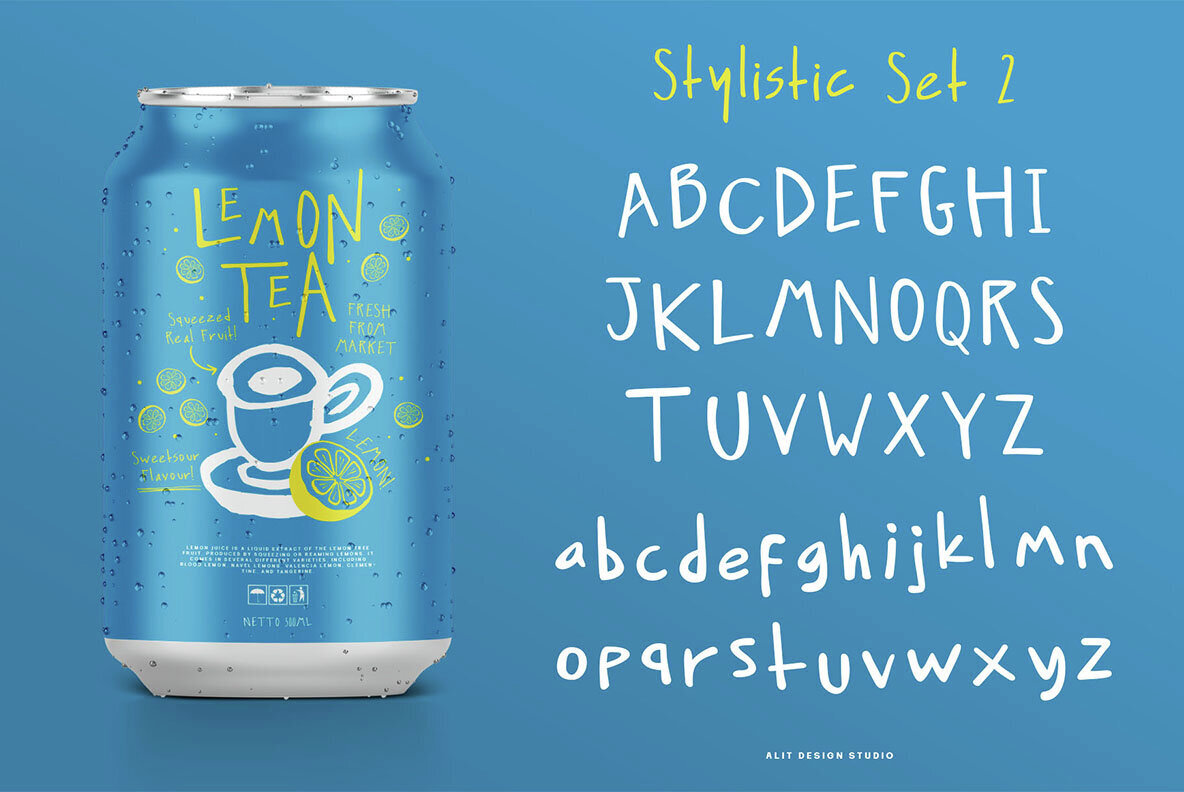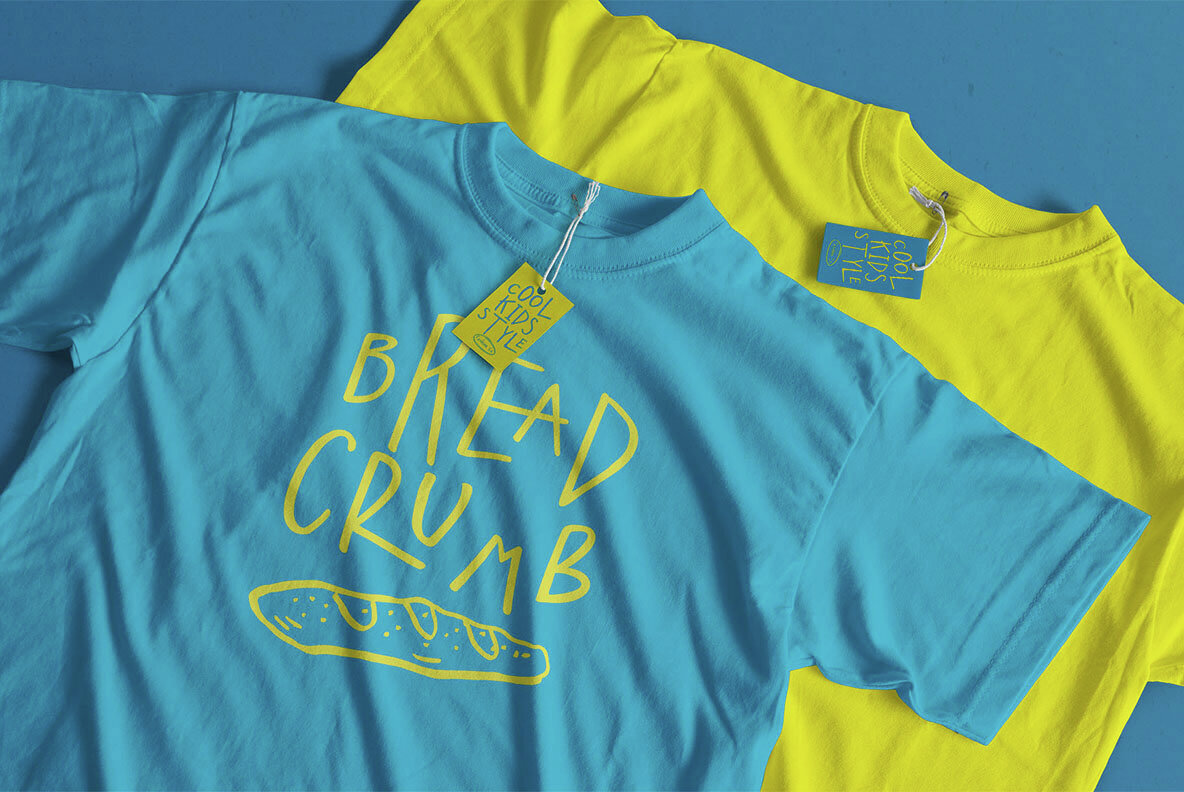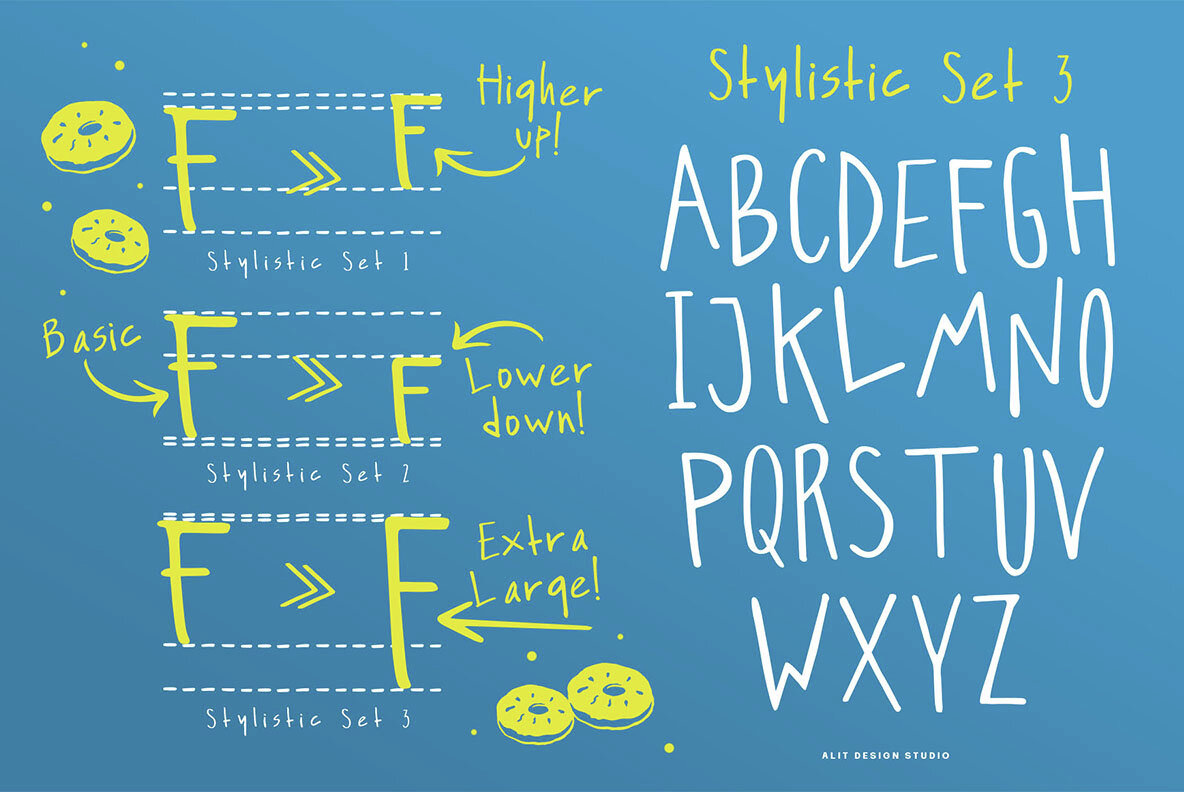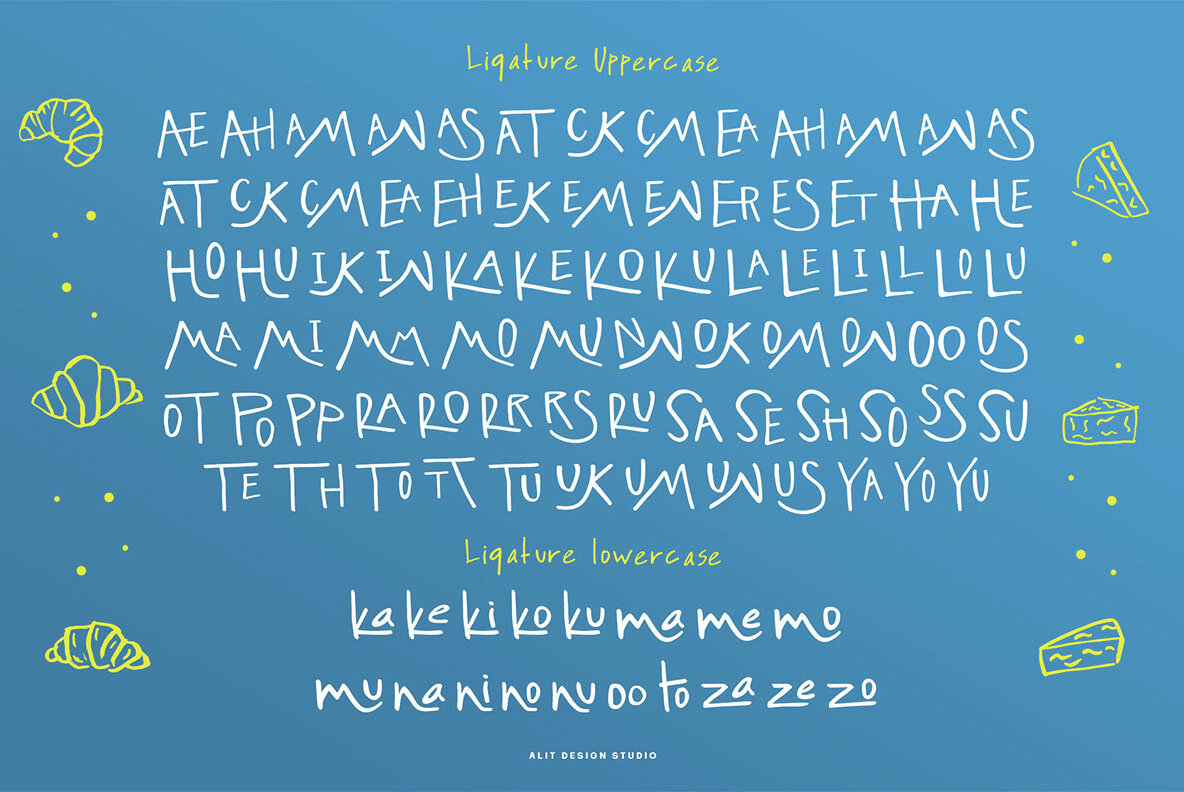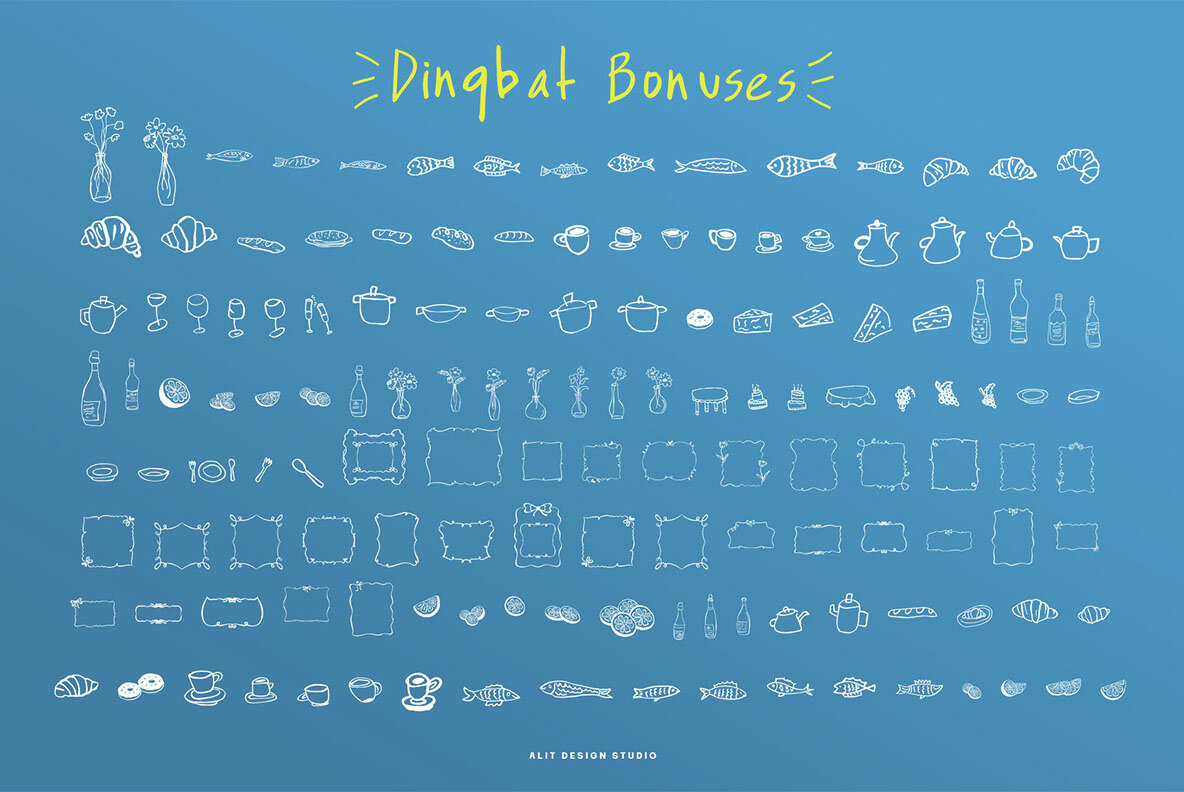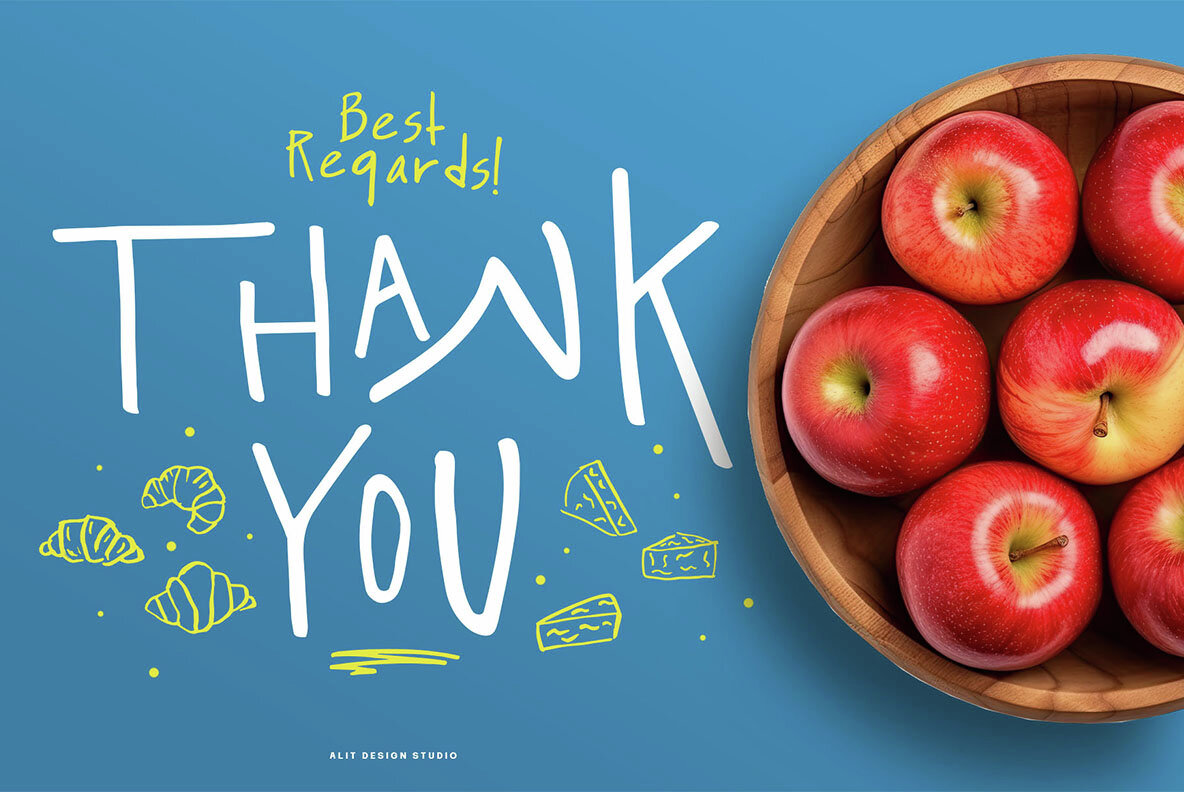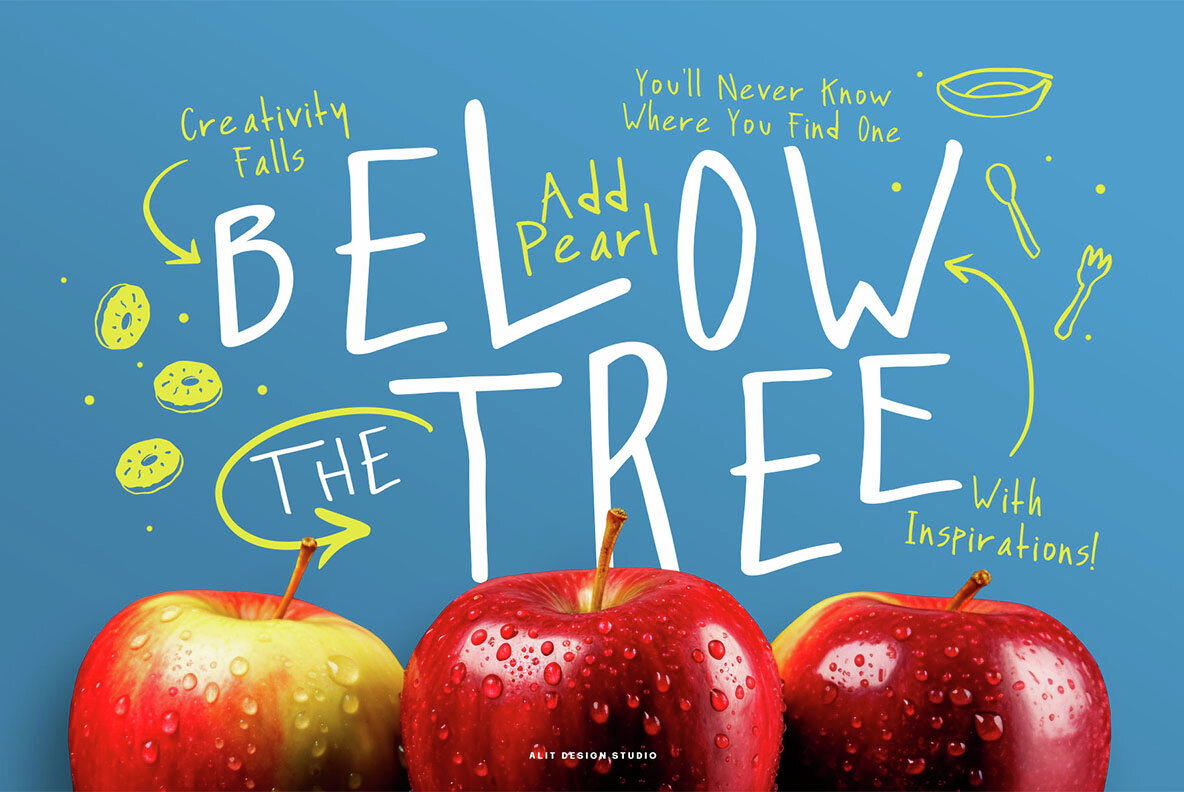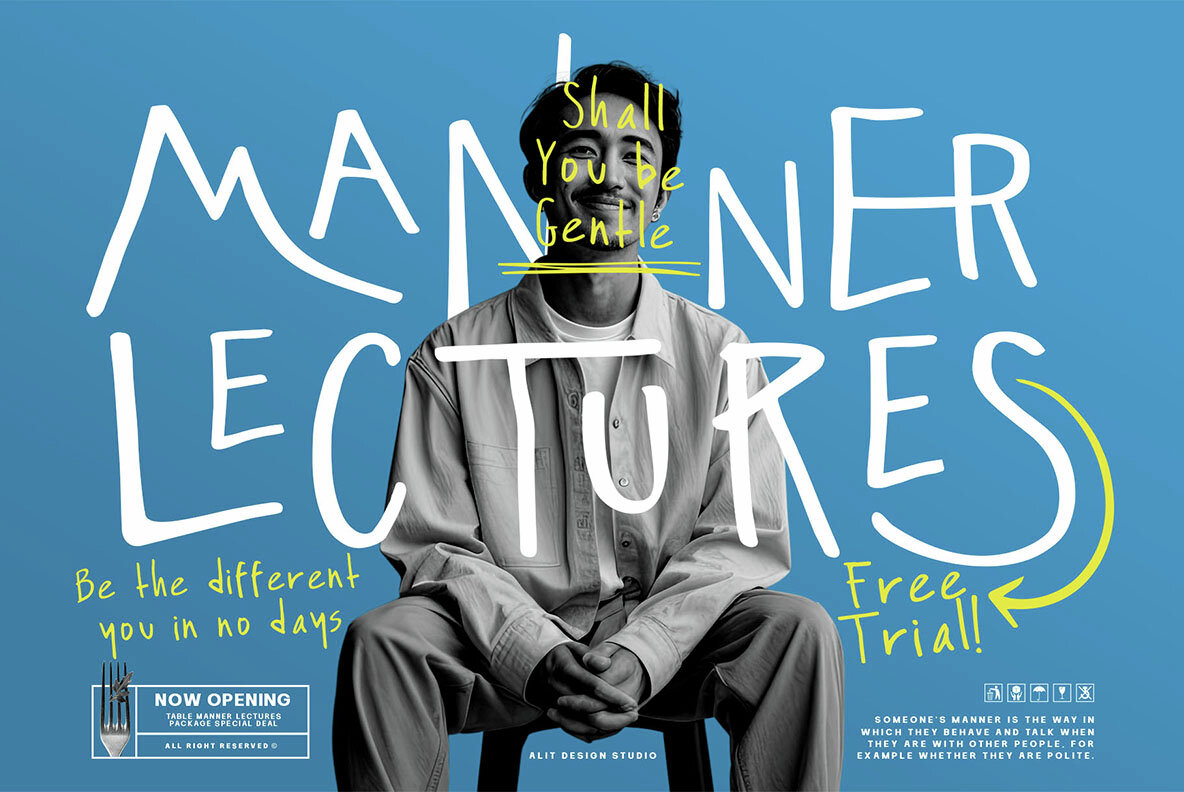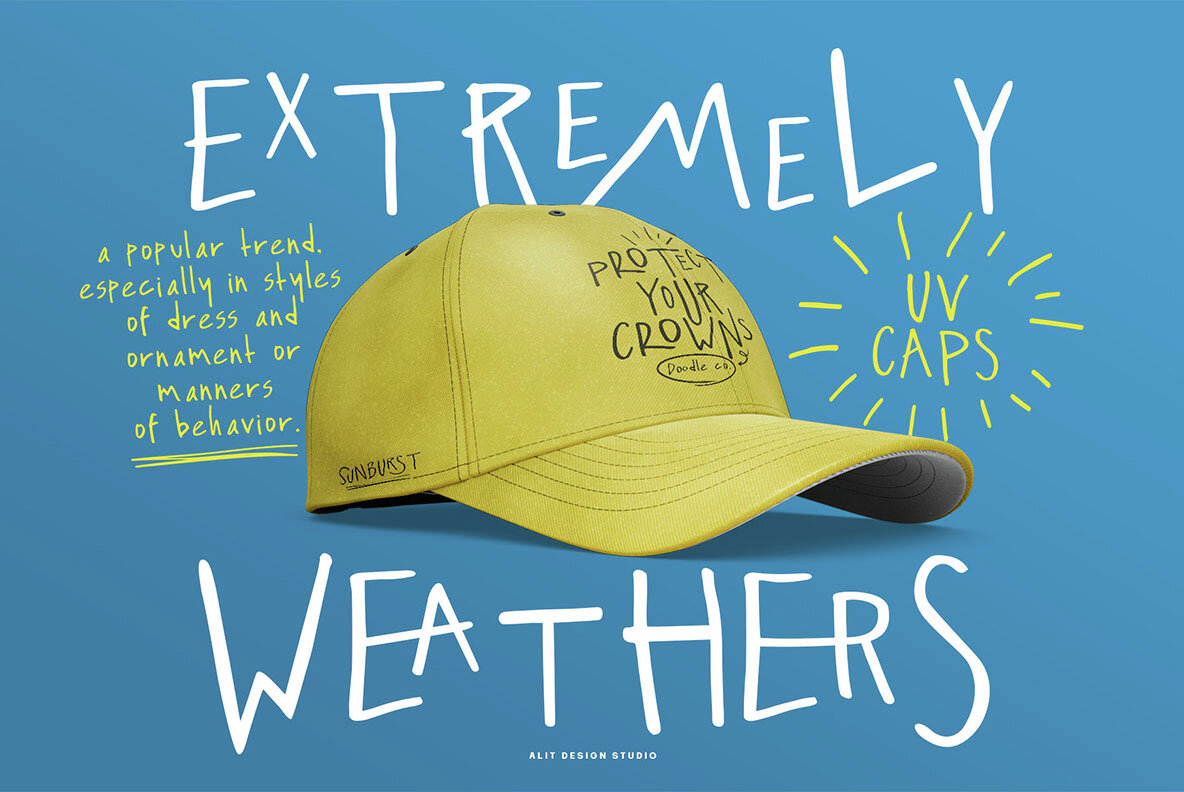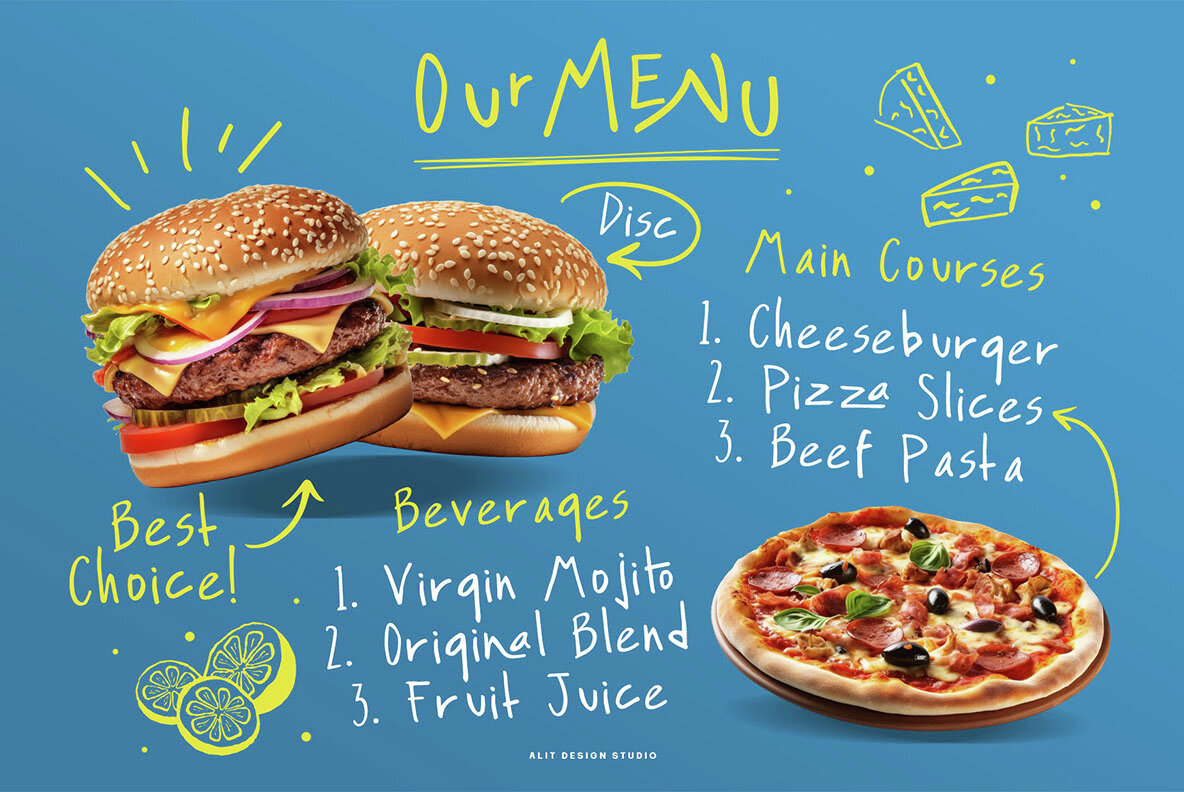
Find Apple Font
Introducing "Find Apple" - a font that whispers tales of childhood adventures and dreams. With its naive, handcrafted charm, Find Apple captures the innocence of youth while maintaining an aesthetic appeal that's both playful and sophisticated. Each letter is lovingly crafted, reminiscent of a child's first attempts at writing, yet with a touch of refinement that makes it perfect for a variety of design projects. Whether you're creating whimsical invitations for a birthday party, designing playful posters for a school event, or adding a touch of nostalgia to your branding, Find Apple is your go-to font for infusing your designs with warmth and character. Embrace the joy of simplicity and the magic of childhood with Find Apple. Let its unique handwritten theme bring your creations to life in the most delightful way possible.